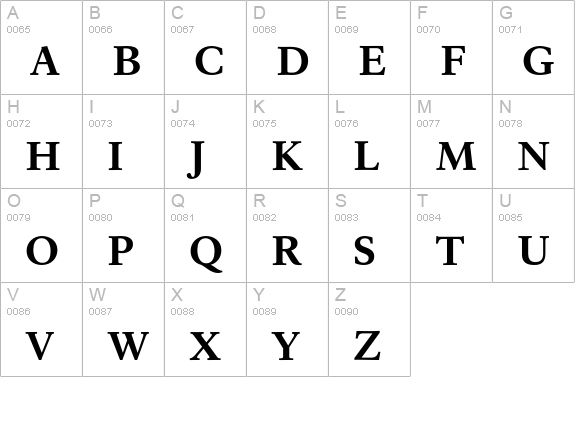
Rawlinson Md Heavy is a heavy, high-impact variant in the Rawlinson typeface family \xE2\x80\x94 well suited to high-impact headlines, posters, and display advertising.
Rawlinson Md Heavy is a bold and powerful font that commands attention with its strong presence. Its thick and sturdy letterforms exude confidence and make a lasting impression. With its bold weight and solid construction, this font is perfect for headlines, posters, banners, and any design that needs to make a bold statement. What makes Rawlinson Md Heavy even more amazing is that it is available for free. Yes, you read that right! This incredible font can be freely downloaded at FontsMarket.com. This means that you can enhance your designs without any cost and add a touch of professionalism and impact to your projects. Whether you're a professional designer or someone who loves experimenting with typography, Rawlinson Md Heavy is a must-have in your font collection. Its versatility allows it to be used in a wide range of design projects, from branding and advertising to packaging and social media graphics. The clean and legible design of Rawlinson Md Heavy ensures that your message is easily conveyed to your audience. Each character is carefully crafted to maintain readability, even at smaller sizes. This makes it a great choice for both print and digital applications, ensuring that your designs look stunning across various platforms. So why wait? Take advantage of this incredible opportunity to download Rawlinson Md Heavy for free at FontsMarket.com and elevate your design game. With its commanding presence and professional aesthetic, this font is sure to make a lasting impression and add that extra touch of sophistication to your projects.